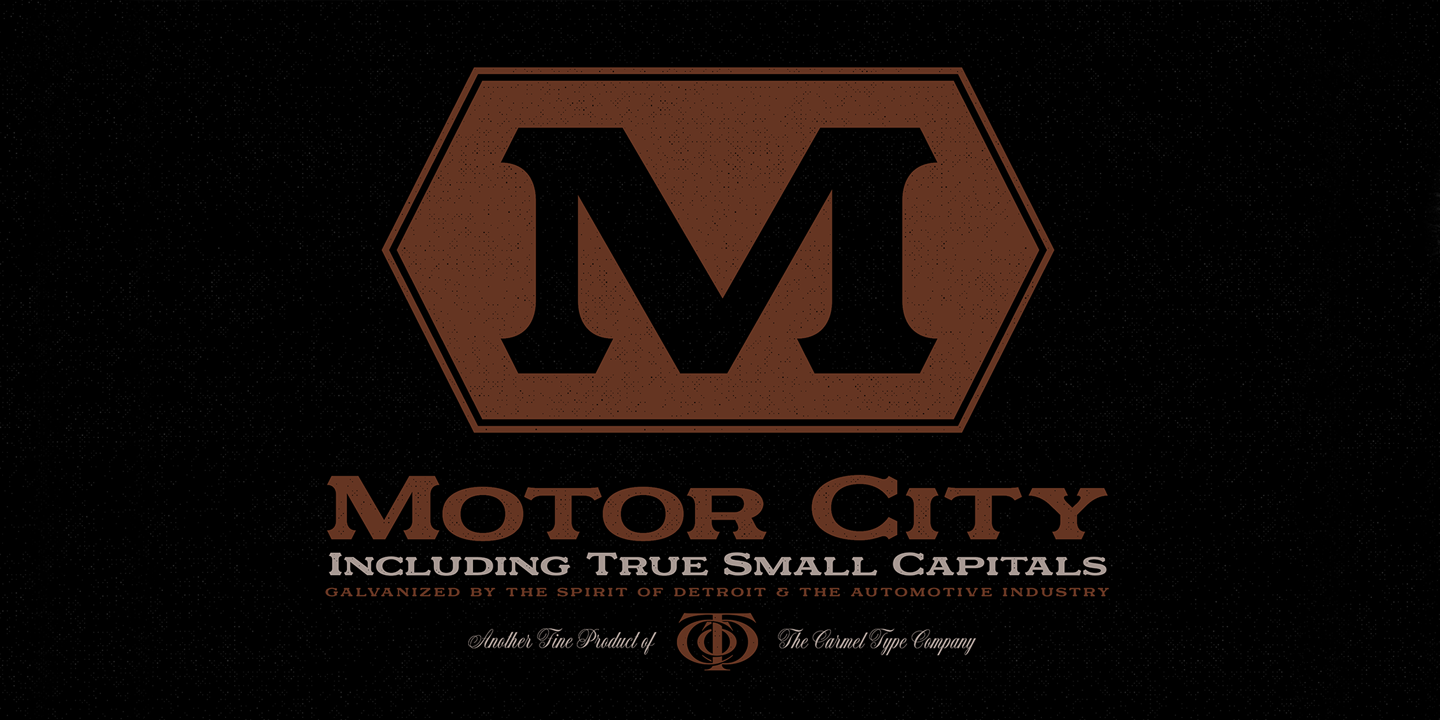
Motor City Font . Defined by its trapezoidal serifs that were characteristic of many. Motorcity font family was designed by rian hughes and published by device. The motor city v3 font was designed by jason carne. Motor city v3 is the perfect font for all your fun designs. The font is available in all formats (motor city woff2, motor city woff, motor city ttf, motor city eot) and applicable.